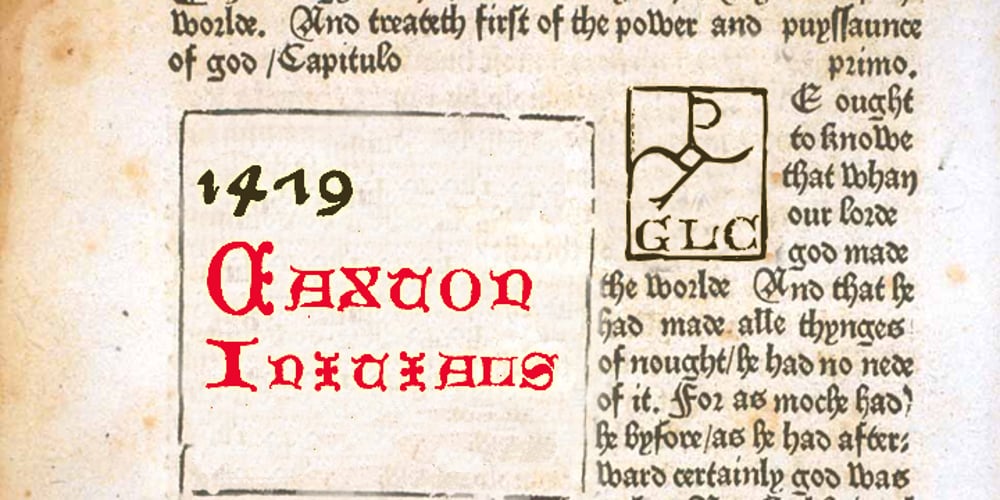
1479 Caxton Initials
1479 Caxton Initials font
1479 Caxton Initials Font Family was designed by published by GLC. 1479 Caxton Initials contains 1 styles and family package options. This family was created inspired from the two sets of rough initials fonts used by the famous William Caxton in Westminster (GB) in the late 1400’s. As it was normal for the time, there were not any differences between I and J, U and V. It is not a mistake. We have reconstructed the few other missing characters. This font was conceived as a supplement for our 1479 Caxton but may be used with all our Blackletters fonts.